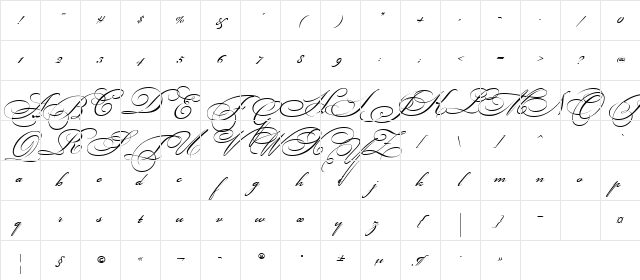
Bickham Script Two Regular
Foundry: Gophmann A.L.
Designer: Gophmann A.L
Design Context for Bickham Script Two
Bickham Script Two flows with the natural rhythm of handwritten lettering, making it ideal for designs that call for warmth and personal expression.
Font Pairing: Combine Bickham Script Two with a simple geometric sans for maximum contrast - the tension between flowing curves and clean structure is a classic typographic pairing.
Pro Tip: Use Bickham Script Two for short runs of text - names, titles, or taglines. Extended body copy in script faces tires the eye quickly.